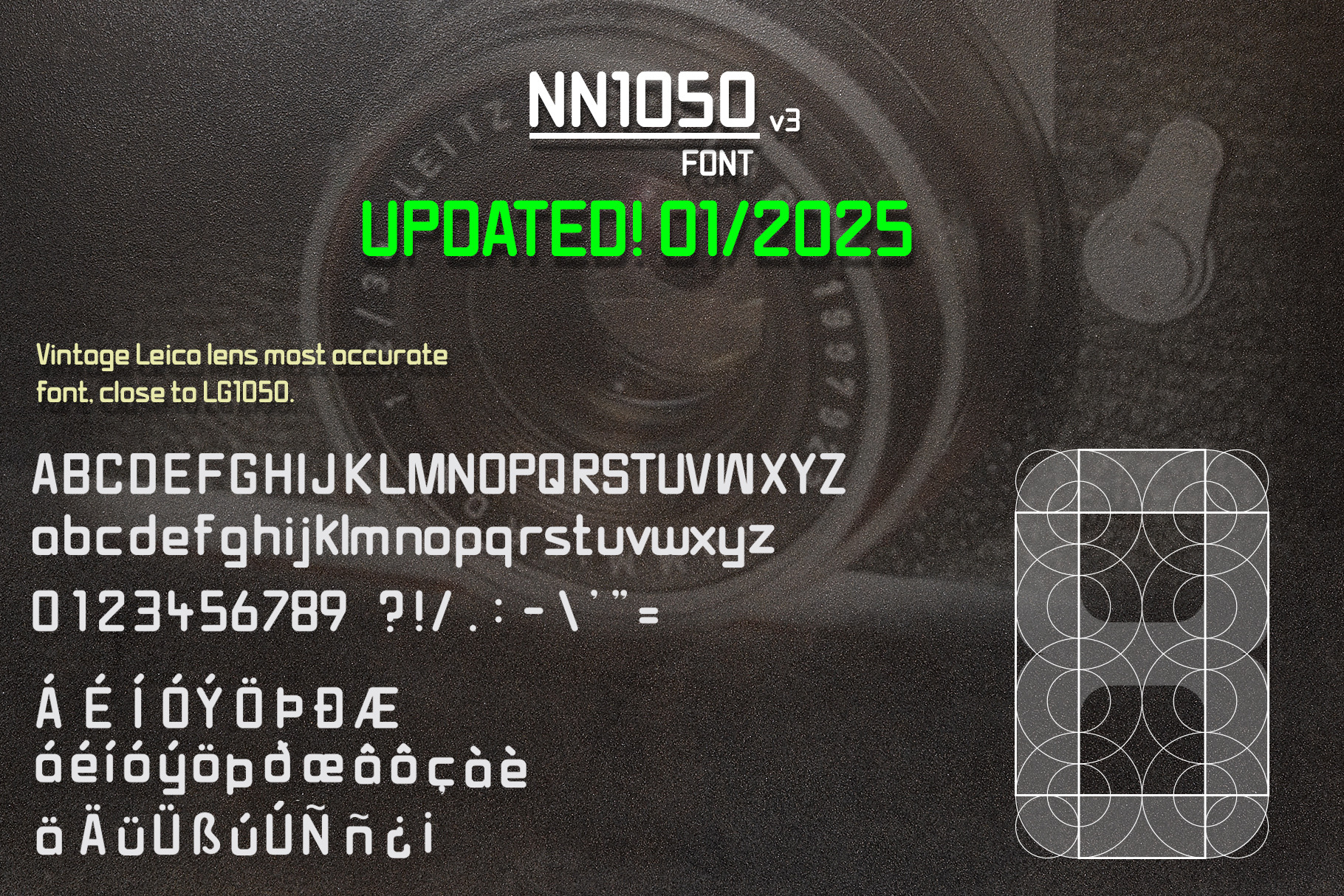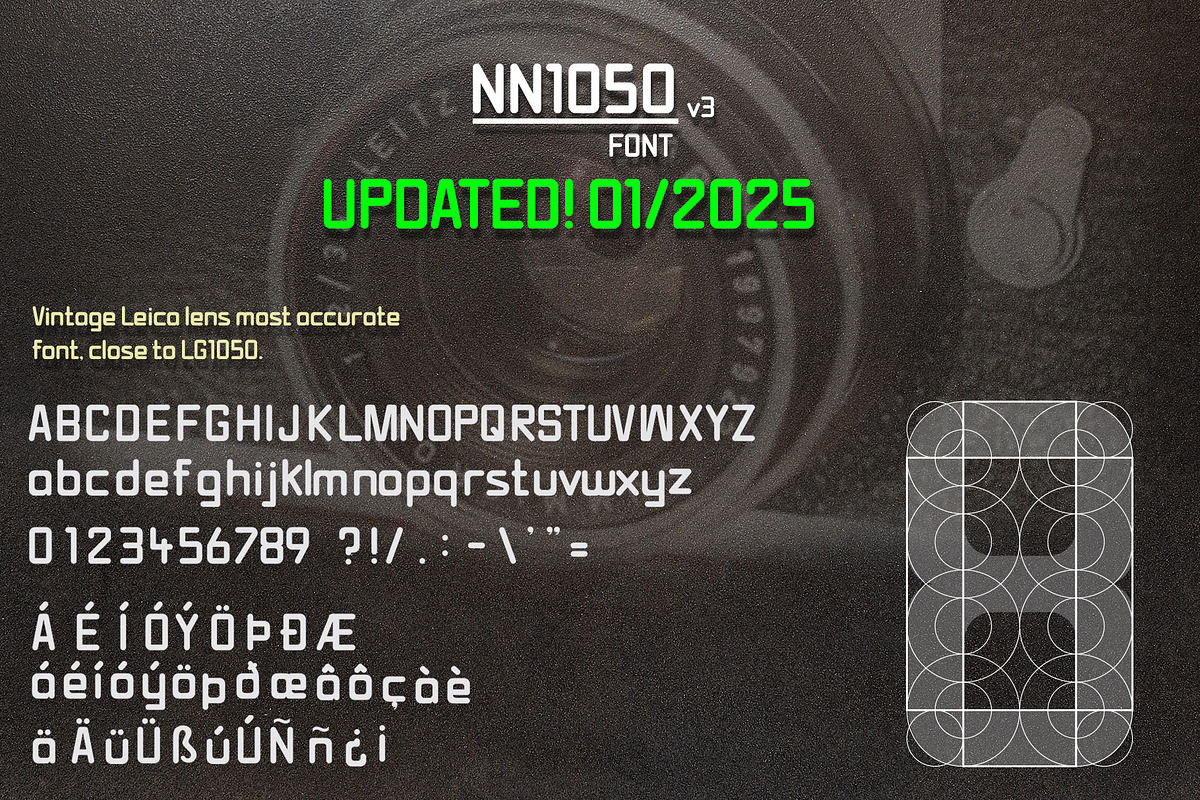
Vintage Leica Lens Font (NN1050)
Hello. Many friends and clients asked for this type font. Here you are! Vintage Leica lens font, close to the LG1050 font. You will get what you see. An .otf font with Capital letters, Lower case letters, numbers and 10 symbols as see on the image. Enjoy!
Update for our best selling font (JANUARY 2025):
More special characters added.
Better kerning and Spacing.